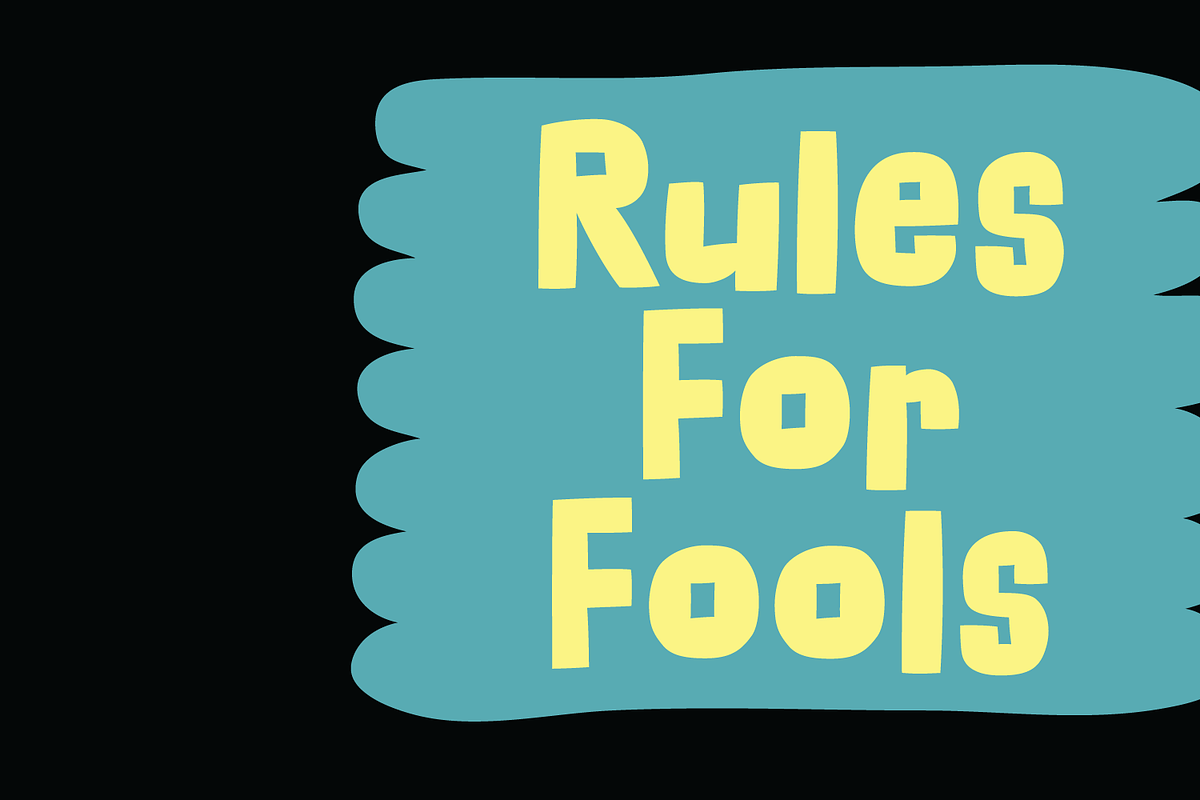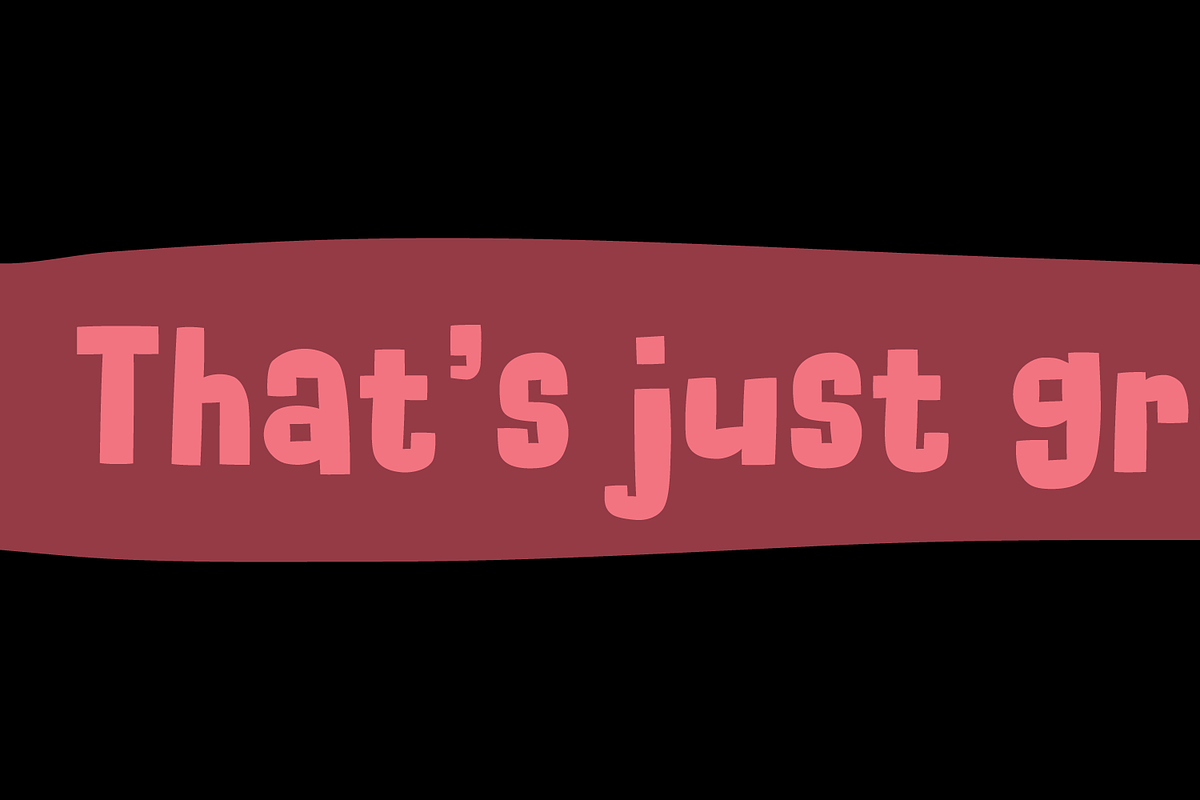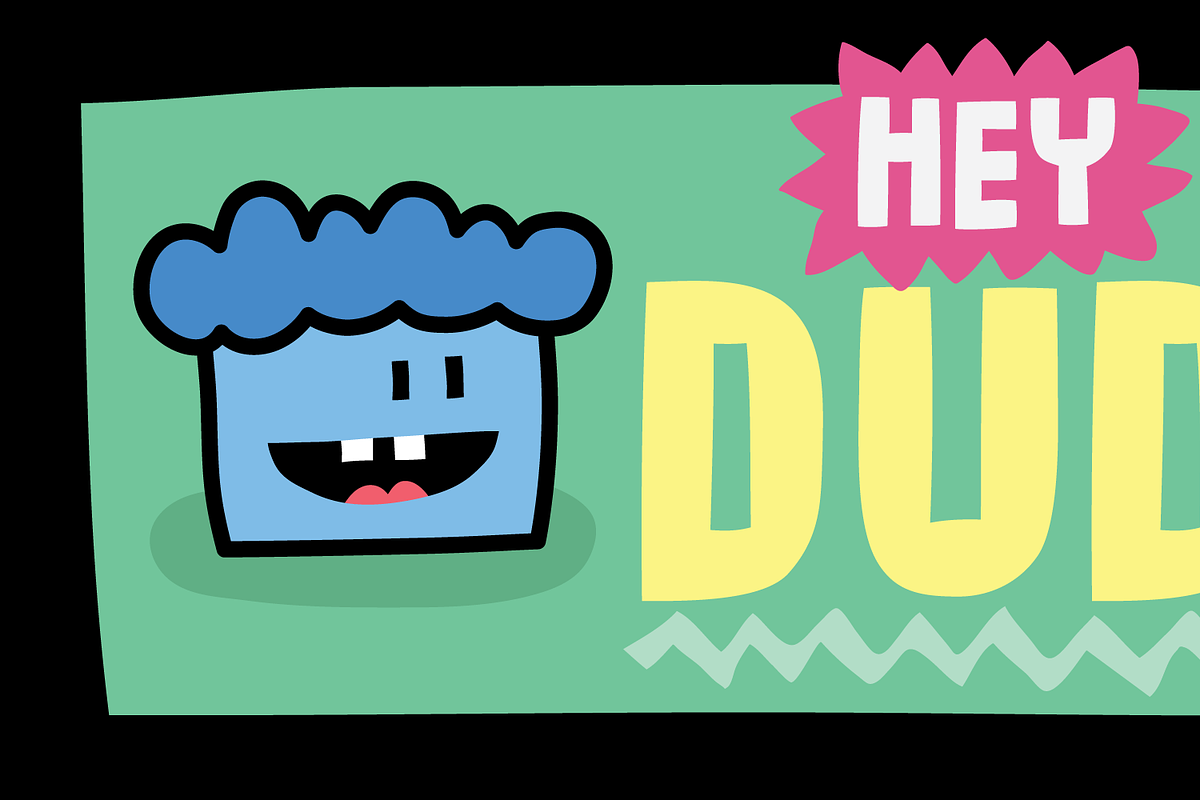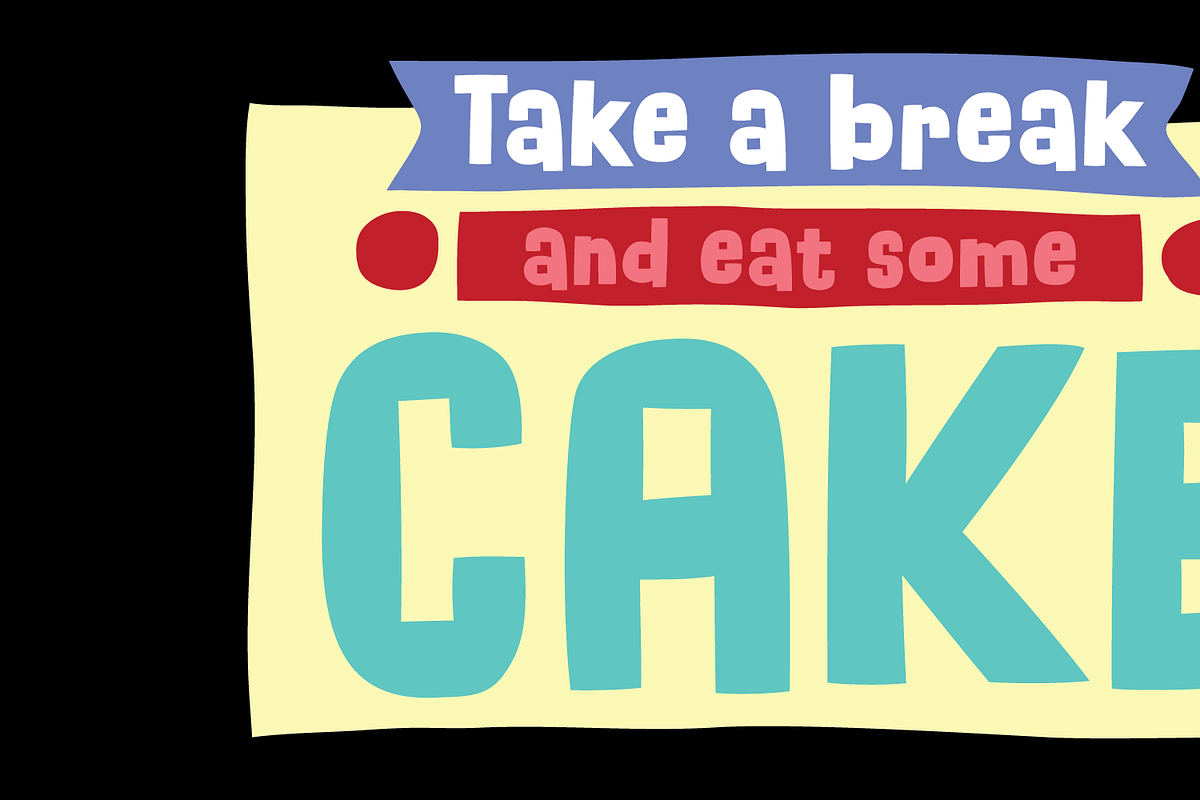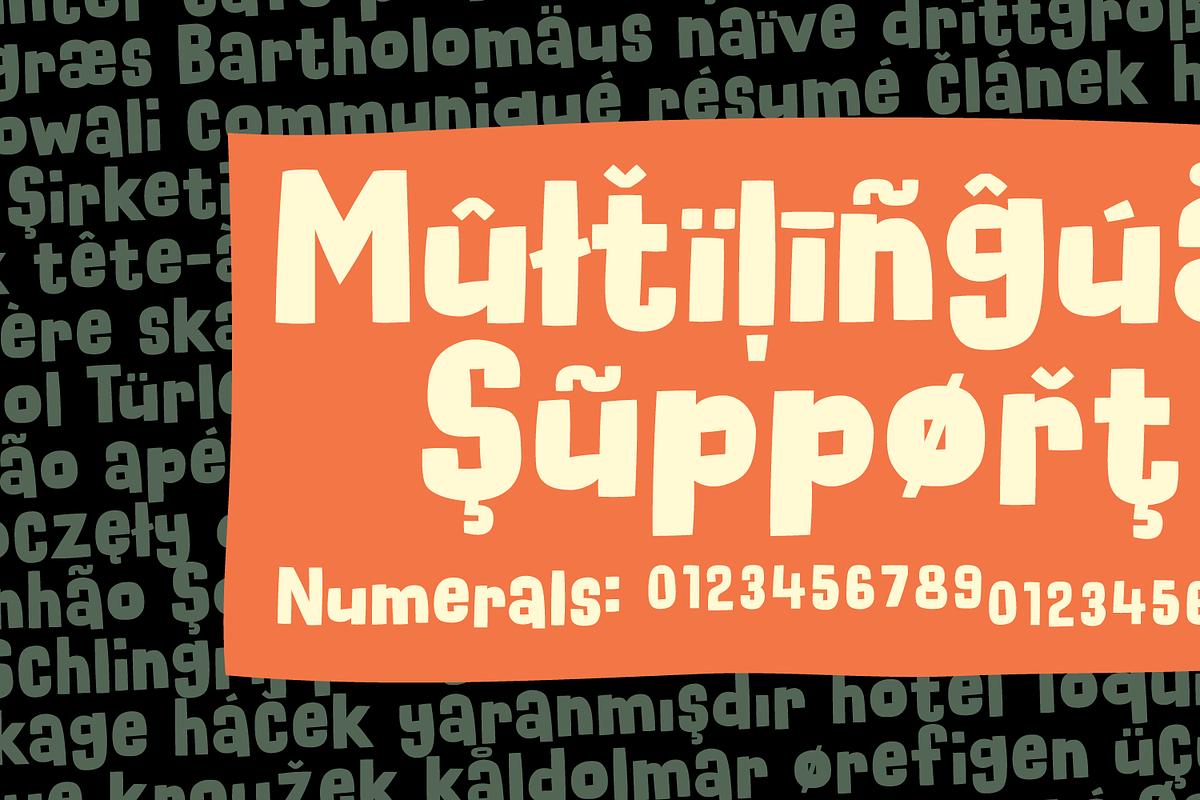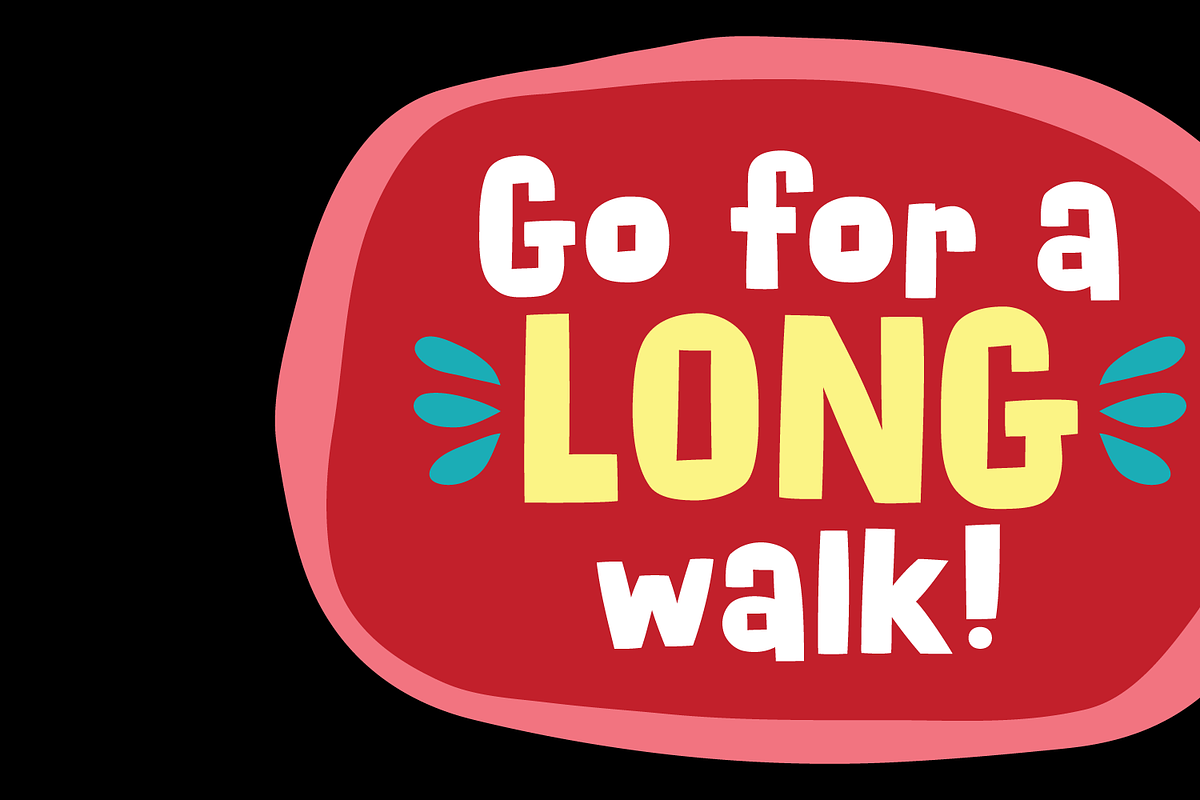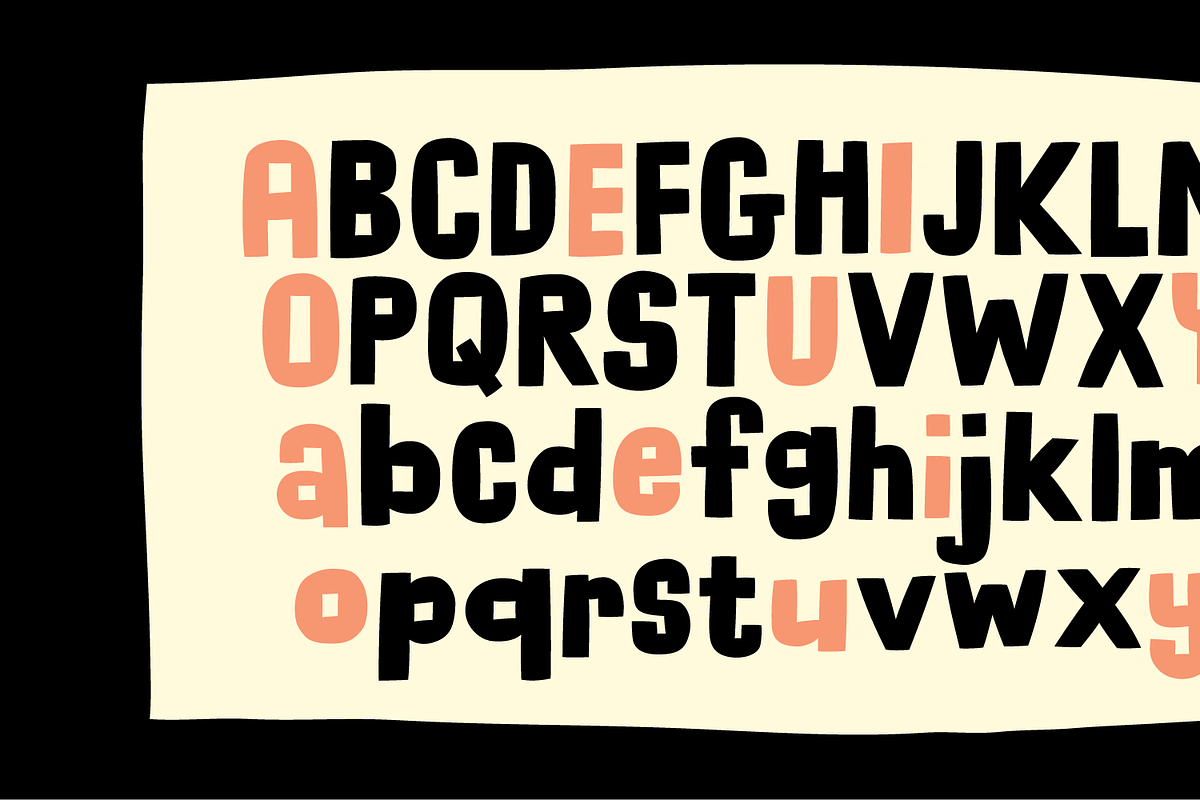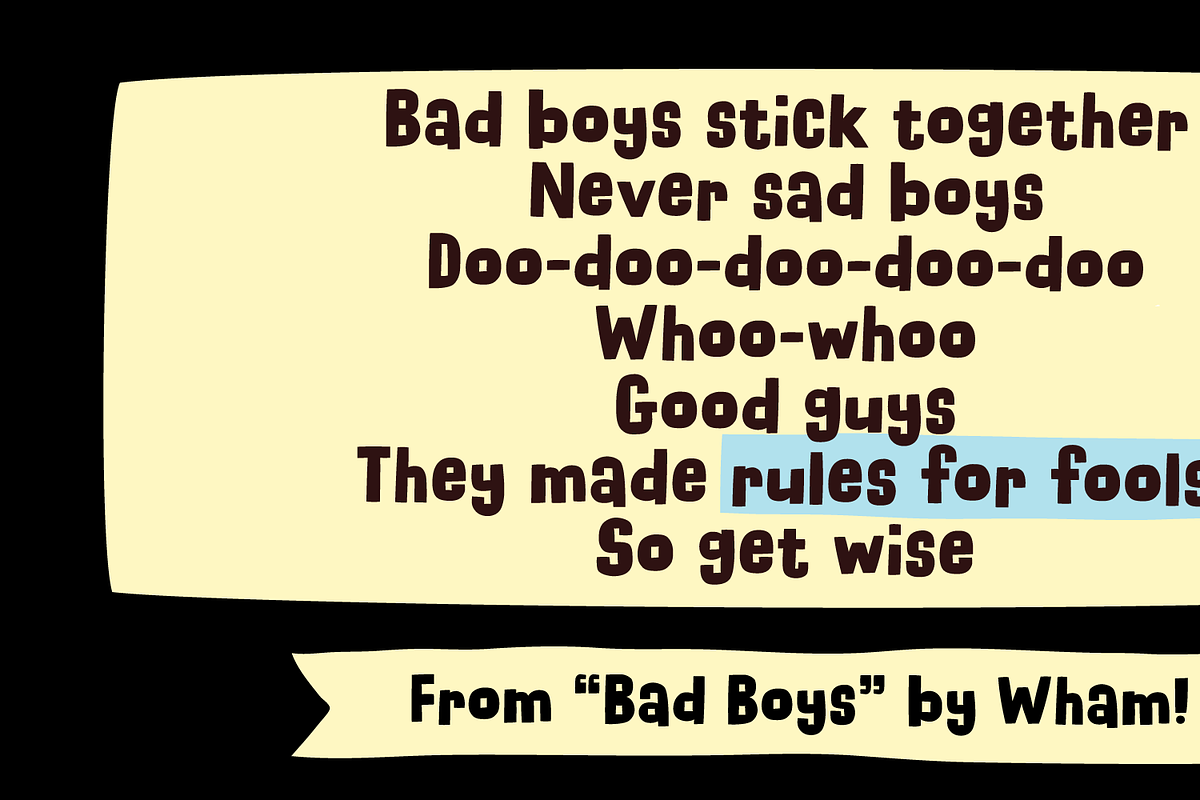
Rules For Fools! Whoo-whoo!
In 1983 Wham! released the album “Fantastic” - at that time I was around 13 and thought that the track “Bad boys” was awesome. And kind of cool as well! - looking back at this, makes me wonder why … but then I think, well, I was 13 and it obvious didn’t take much to impress me :) Now, 43 (!) years later, I have created this “Rules For Fools” (as George Michael sings in the track) It’s bold, cheeky, bouncy and it’s that kind of typeface works best where fun is required: like posters, headlines, packaging or anywhere else where text needs to party! :)